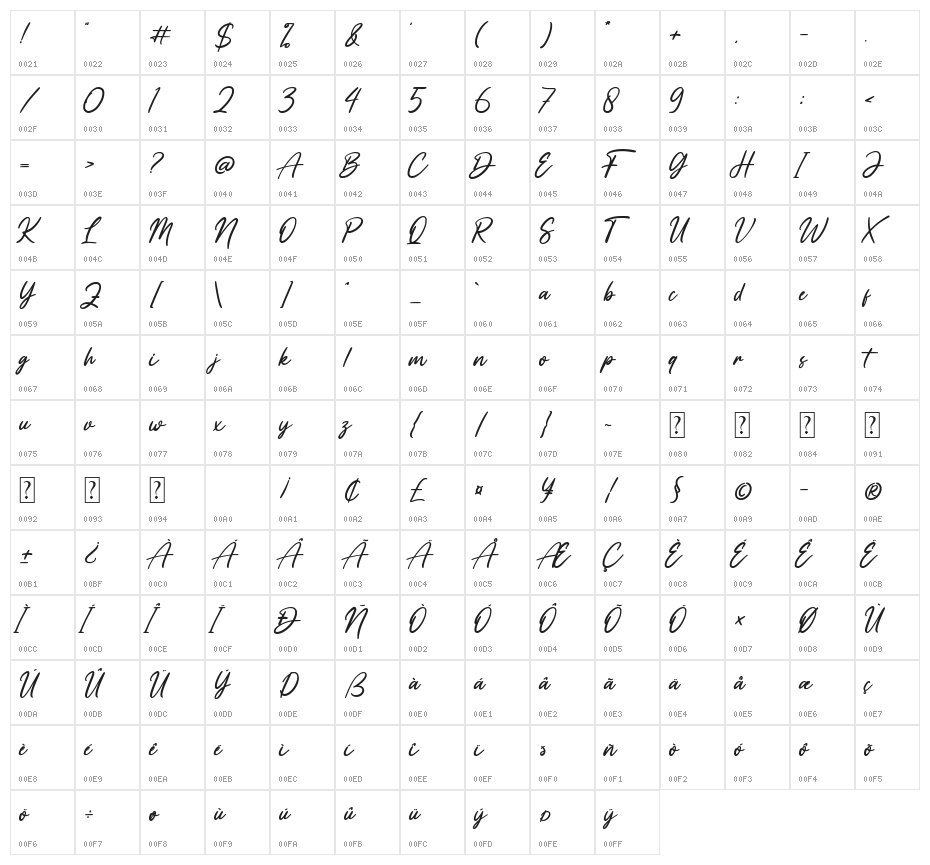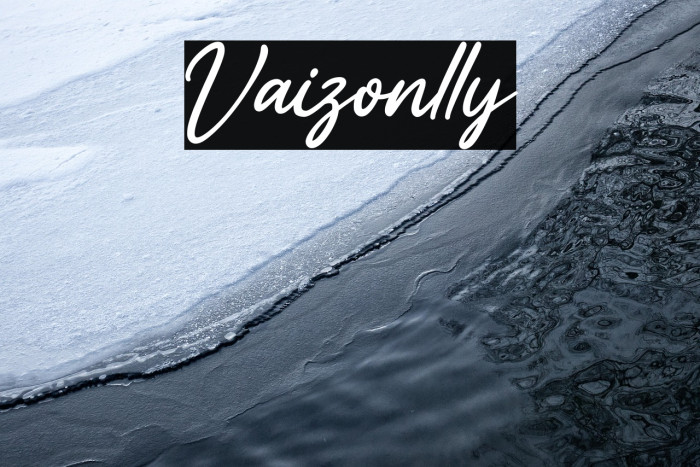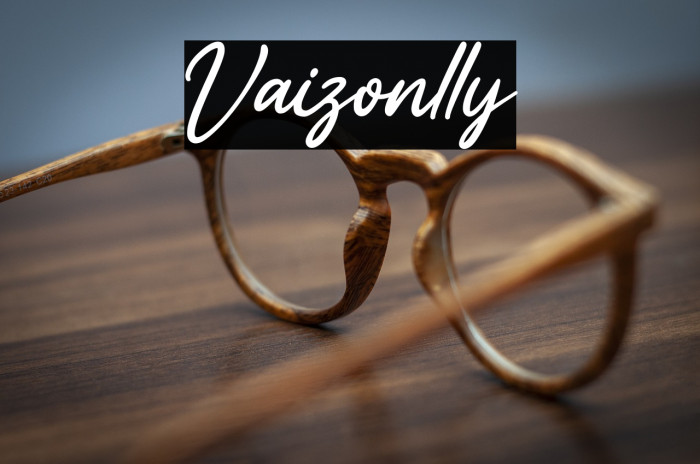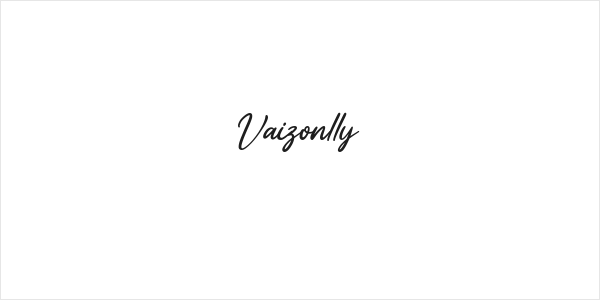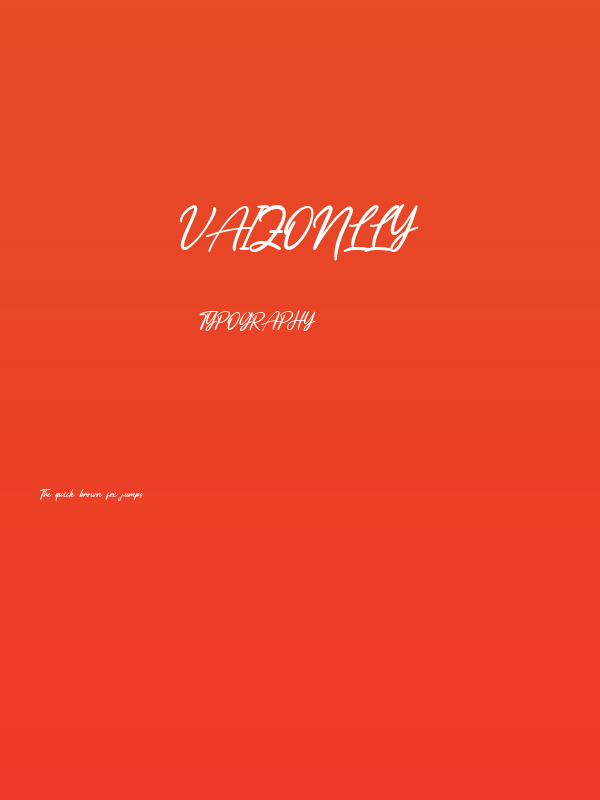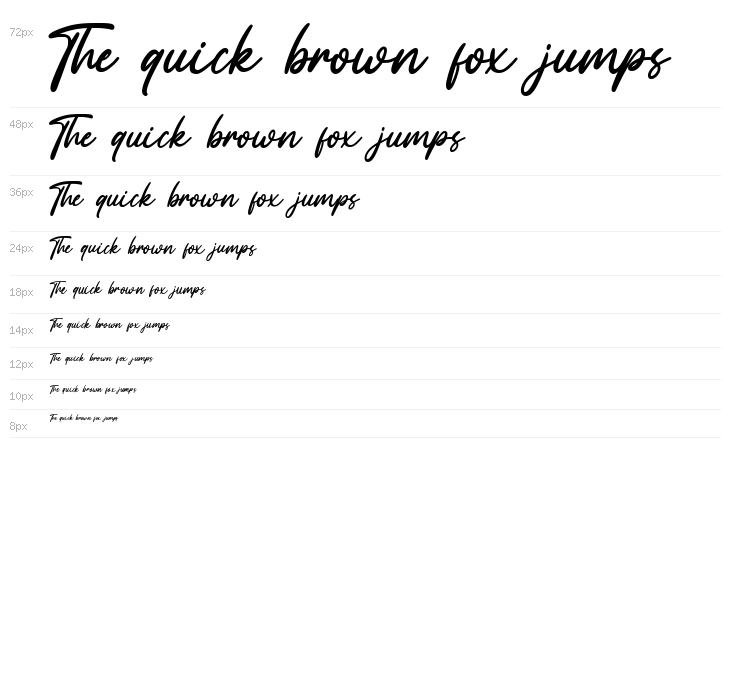
Vaizonlly Font
| Cas d'utilisation | Logos, Invitations, Greeting Cards |
| Projets proposés | Ideal for wedding invitations, greeting cards, branding, and logo design where a personal touch is desired. |